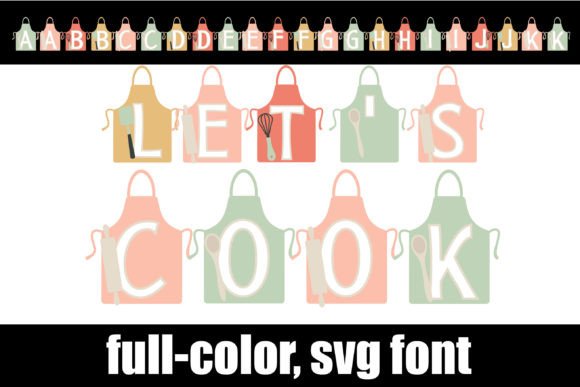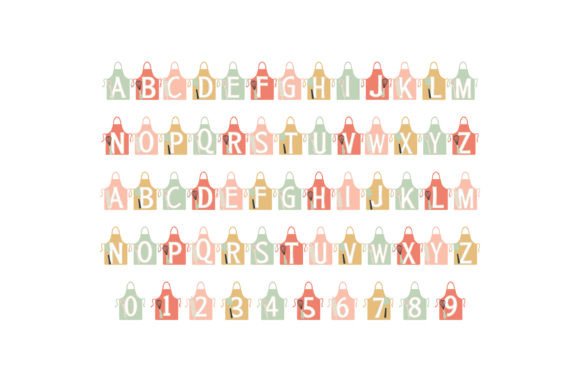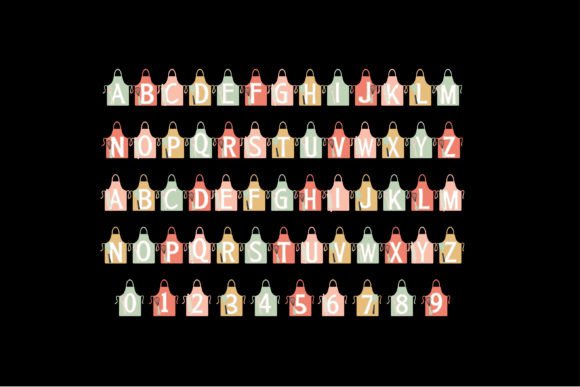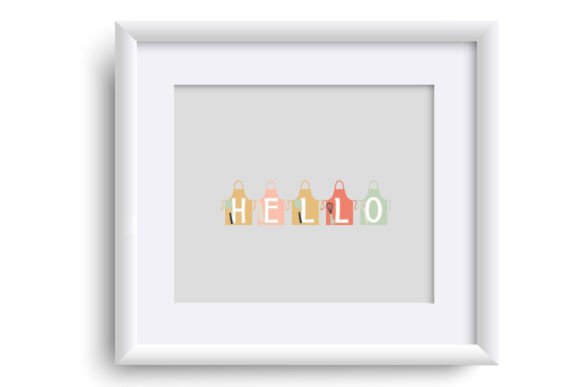
Let’s Cook Font
About Let’s Cook Font
Introducing Let’s Cook, a vibrant and full-color font designed to add flavor and style to all your cooking and cuisine-related projects. With its heavy sans serif lettering placed on colorful aprons, this font is sure to make a lasting impact and create a visually captivating design.
Let’s Cook is the perfect choice for a wide range of culinary projects. Whether you’re designing a cookbook cover, creating a food blog logo, designing a menu, or crafting promotional materials for a cooking class or restaurant, this font will add a touch of culinary flair and make your designs stand out.
The bold and heavy sans serif lettering of Let’s Cook exudes confidence and professionalism, while the colorful apron backgrounds bring a vibrant and playful element to the font. This combination creates a visually striking and engaging look that captures the essence of the cooking and culinary world.
With Let’s Cook, you can infuse your designs with the passion and excitement of the kitchen. The full-color nature of the font allows you to experiment with different apron colors and mix and match them to suit your design needs. Whether you prefer bold and bright colors or subtle and muted tones, Let’s Cook offers a wide range of options to create the perfect culinary atmosphere.
Whether you’re a professional chef, a food enthusiast, or someone who simply enjoys cooking, Let’s Cook is here to elevate your designs and bring a touch of culinary charm. Let this full-color font inspire your creativity and transform your cooking and cuisine-related projects into mouthwatering works of art.